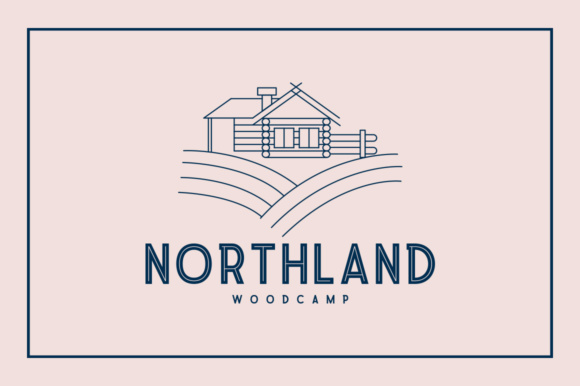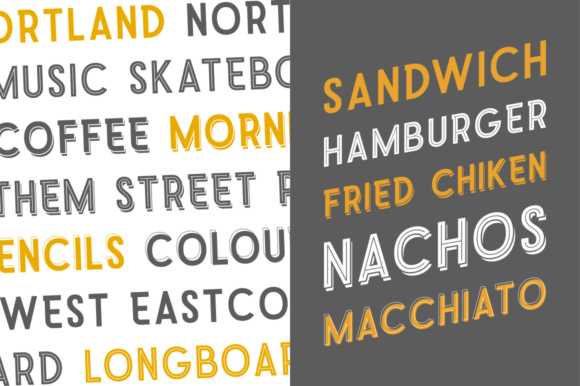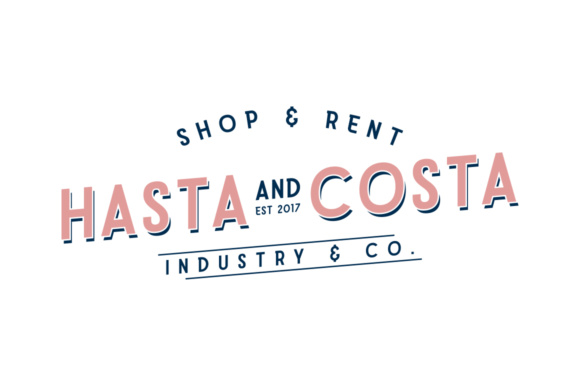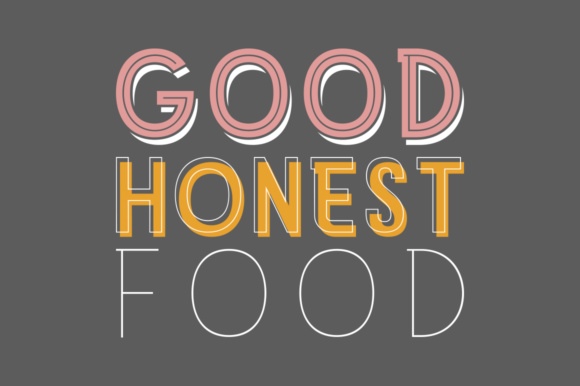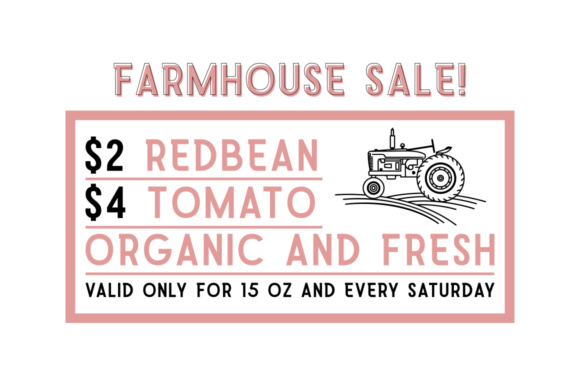
Introducing Explode Family Font: A Versatile and Playful Typeface
In the world of typography, a font can make all the difference in the success of a design project. Whether you’re a professional designer, a crafty DIY enthusiast, or a small business owner, finding the right font can elevate your brand, add personality to your products, and capture the attention of your audience. That’s where the Explode Family Font comes in – a layered type family designed to bring simplicity, playfulness, and versatility to your creative projects.
What is Explode Family Font?
Explode is a carefully crafted type family that consists of four weights, offering a range of options to suit various design needs. This font family is characterized by its clean lines, straightforward shapes, and an overall simplicity that makes it highly legible and adaptable. Whether you’re working on branding materials, labels, greeting cards, displays, headers, or any other project that requires a distinctive yet clear typography, Explode is an excellent choice.
Key Features of Explode Family Font
- Layered Design: The Explode font family boasts a layered design, which allows for a high degree of customization. This feature is particularly useful for designers who want to experiment with different textures, colors, and effects to give their work a unique look.
- Four Weights: With four weights at your disposal, you can choose the perfect style to match your project’s tone and requirements. Whether you need a light, airy feel or a bold, impactful statement, Explode has got you covered.
- Simple and Easy: The simplicity of Explode is one of its standout features. This simplicity ensures that the font is easy to read and versatile enough to be used across a wide range of applications.
- Playful Touch: Despite its simplicity, Explode manages to convey a playful vibe that’s perfect for projects that require a bit of personality. This playful touch can help make your designs more engaging and memorable.
Use Cases for Explode Family Font
The versatility of Explode makes it suitable for a myriad of design projects. Here are some of the most popular use cases:
- Branding: Create a lasting impression with your brand’s logo or marketing materials using Explode’s clean and professional look.
- Labels: Whether you’re designing product labels, address labels, or any other type of label, Explode’s clarity and readability make it an excellent choice.
- Greeting Cards: Add a personal touch to your greeting cards with Explode’s playful yet elegant style.
- Displays and Headers: Make your website headers, posters, or banners stand out with Explode’s bold weights and layered design capabilities.
Why Choose Explode Family Font?
With so many fonts available, why should you choose Explode for your next project? Here are a few compelling reasons:
- Uniqueness: While Explode is simple, its layered design and range of weights give it a unique edge over more traditional fonts.
- Versatility: From digital applications to print, Explode performs exceptionally well across various mediums.
- Ease of Use: Thanks to its clear and legible design, Explode is easy to use, even for those who are new to design.
The Explode Family Font is a powerful tool for designers and crafters looking to add a touch of simplicity, playfulness, and professionalism to their work. Its layered design, range of weights, and versatility make it an ideal choice for a wide range of projects. Whether you’re working on branding, labels, greeting cards, or displays, Explode is sure to help you achieve your creative goals. So, why wait? Explore the possibilities with Explode Family Font today and take your designs to the next level!